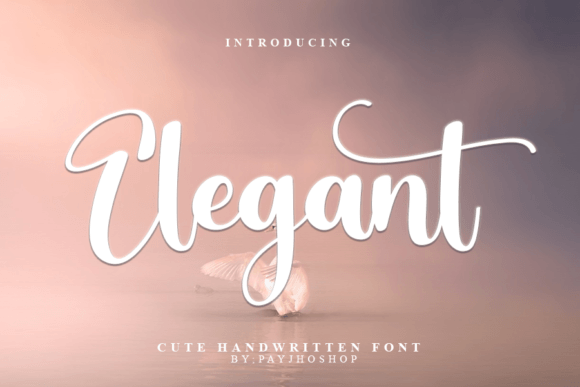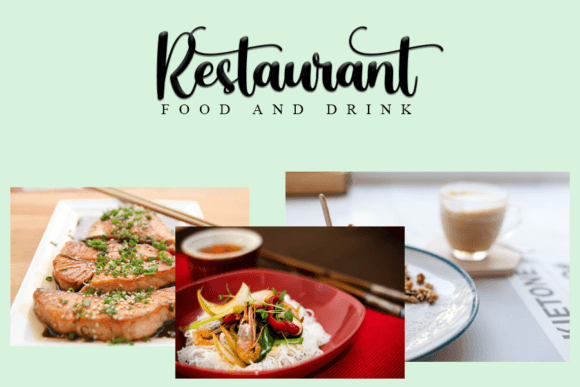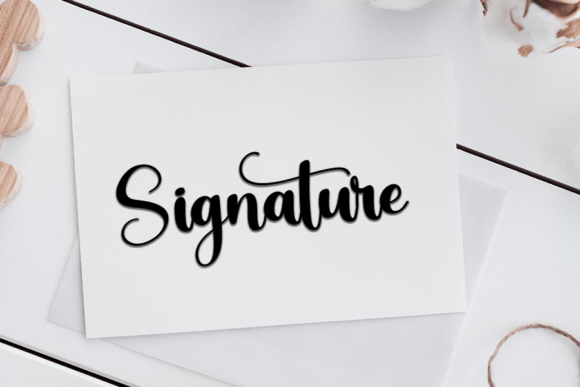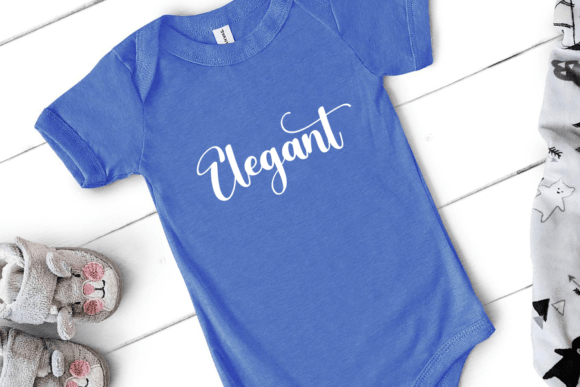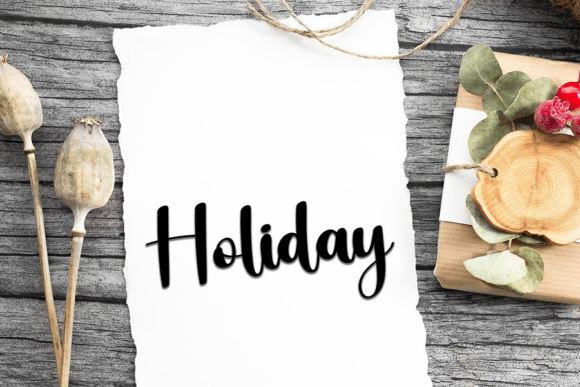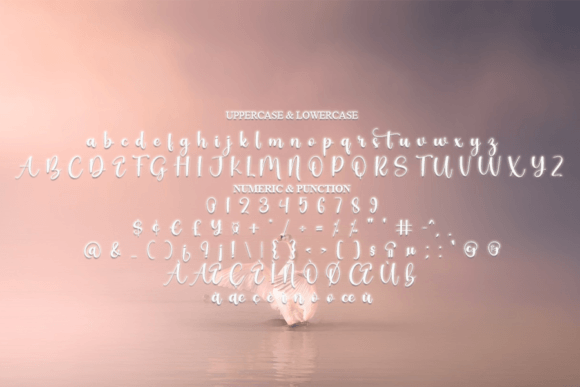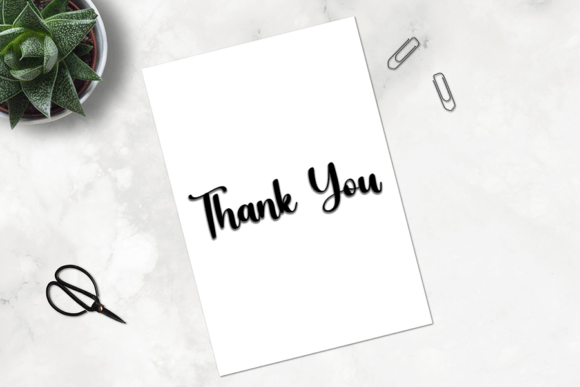
Elegant Font
About Elegant Font
Elegant Font is a bold handwritten script that combines gorgeous strokes with timeless beauty. With confident curves and stylish details, this typeface brings refinement and originality to both personal and professional projects. Because of its versatile design, Elegant Font is perfect for crafts, greeting cards, invitations, logos, posters, and branding.
A Bold Handwritten Typeface with Gorgeous Style
Handwritten fonts naturally add character to creative projects, and Elegant Font enhances this with its confident strokes. Its bold rhythm makes text stand out, while its stylish curves add sophistication. Moreover, its versatile appearance adapts seamlessly to both casual and formal layouts. As a result, this typeface is a dependable option for designers who want elegance with strength.
For stationery and event projects, Elegant Font is an excellent choice. For example, it can turn a wedding invitation into a keepsake full of charm. In addition, it works beautifully for thank-you notes, birthday greetings, and seasonal cards. Because of its bold yet graceful design, every project feels heartfelt, stylish, and memorable.
A Script Typeface for Logos and Branding
Businesses and creatives looking to stand out can rely on ElegantFont. It adds sophistication and personality to logos, product labels, and packaging. Furthermore, on social media, it enhances posts, banners, and promotional graphics with elegance. When paired with minimalist sans serif fonts, Elegant Font achieves balance between professionalism and creativity.
Another advantage of Elegant Font is its adaptability across mediums. In print, it shines on brochures, posters, magazines, and merchandise. Digitally, it elevates websites, blogs, and presentations with authenticity. Since it maintains clarity in both small and large sizes, this handwritten script is practical for a wide range of creative uses.